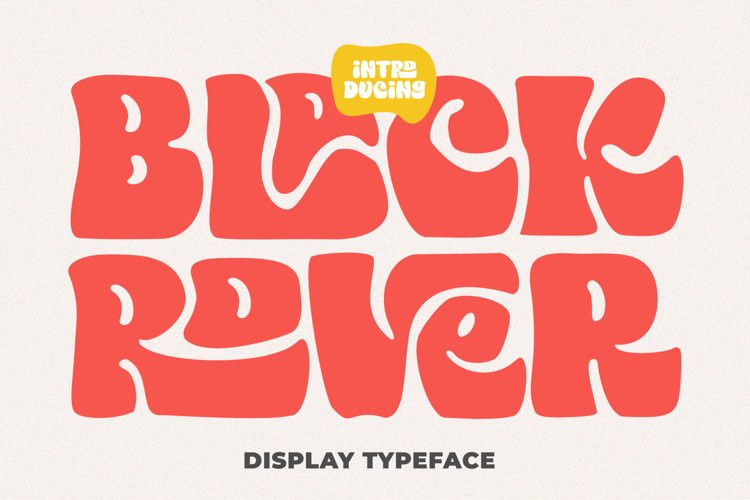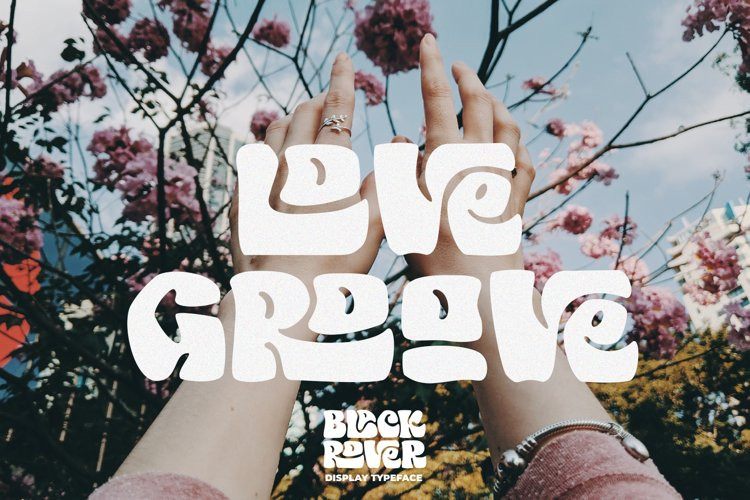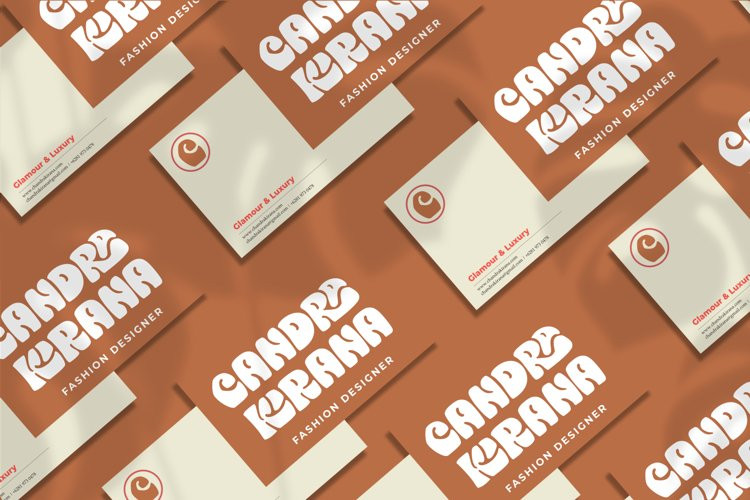
Black Rover Font
Black Rover FontBlack Rover is a Bold vintage style serif font with strong character and soft features. modern and classic font with a unique and bold look. It’s a very versatile font that works great in large.
Black Rover was built with openType features, Many Ligature makes your project will be awesome!!
Perfect for editorial projects, Logo design, web font, clothing branding, product packaging, magazine headers, or simply as a stylish text overlay to any background image.